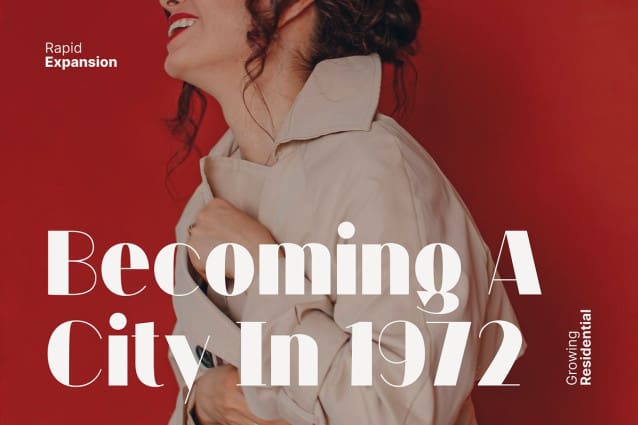
Munges Font Family
Munges Font Family is the newest typeface with a decorative style, The entire typography has been designed to work on large sizes. This font ideal for designing merchandise, social media, marketing posts, product packaging & branding projects. Munges supports uppercase, lowercase, numerals and punctuation.